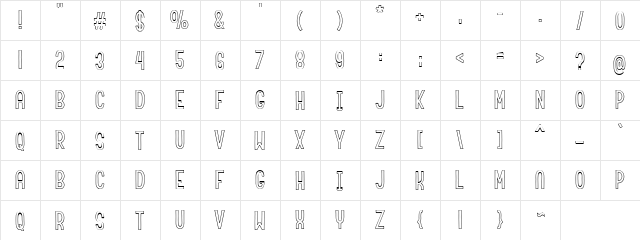
Roundabout Outline Outline
| Foundry | Lauren Ashpole |
| Designer | Lauren Ashpole |
Design Context for Roundabout Outline Typeface
Roundabout Outline brings ornamental detail and strong personality to headlines and identities, where visual impact matters more than quiet functionality.
Font Pairing: Pair with a clean neutral sans-serif for body copy to let Roundabout Outline's character lead without overwhelming the composition.
Pro Tip: Use Roundabout Outline exclusively at display sizes — it was designed to be seen, not read at length. Let a neutral companion handle body copy.